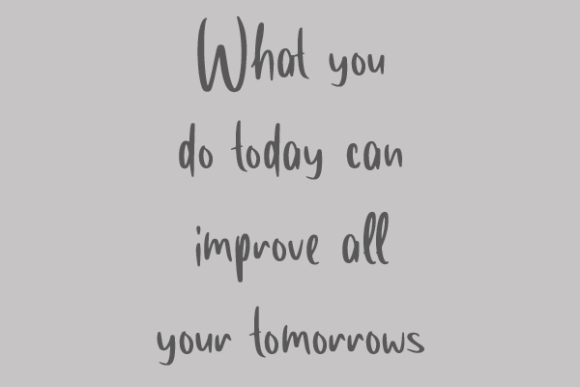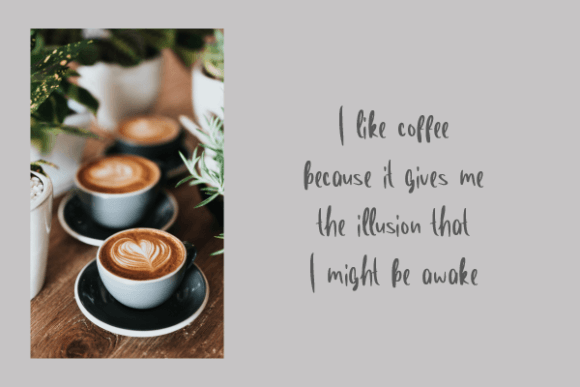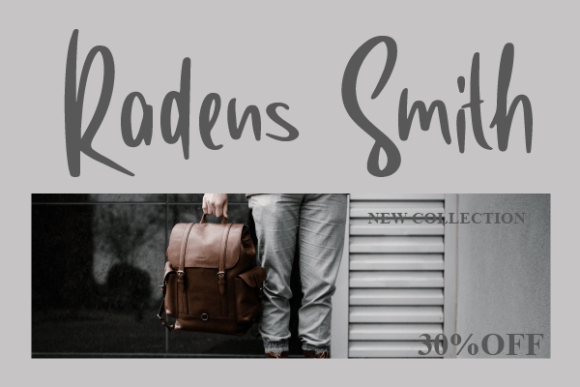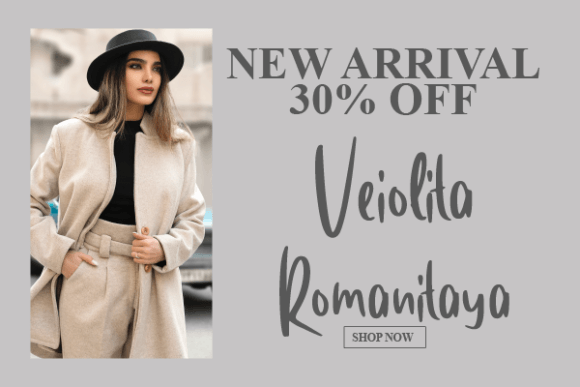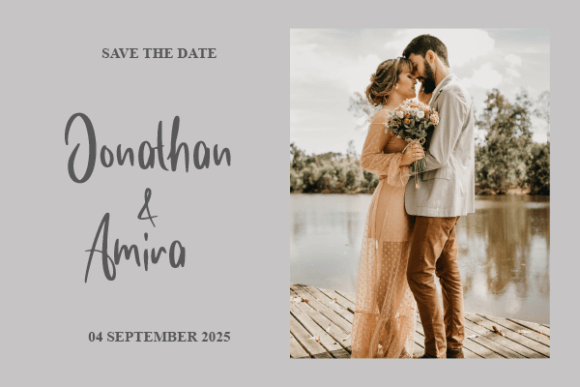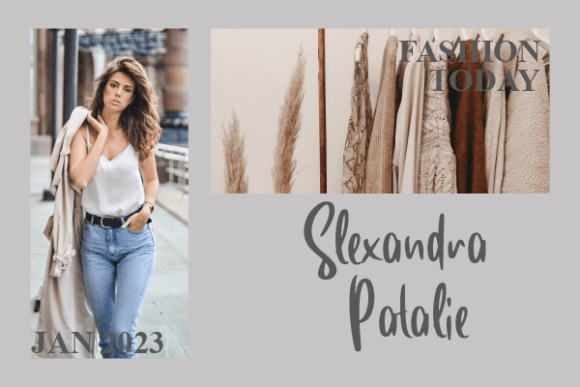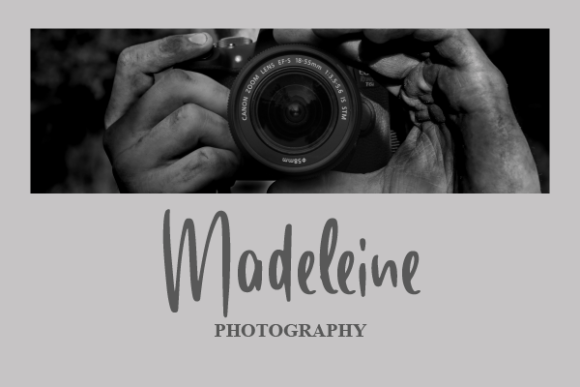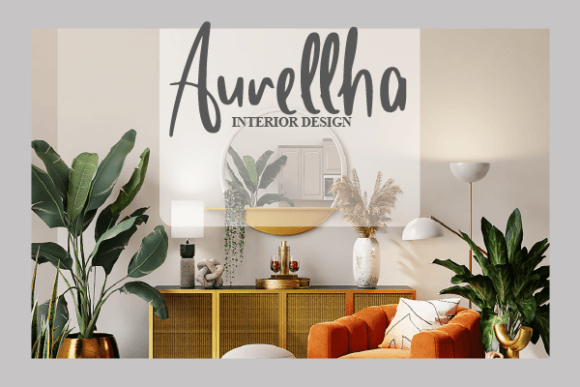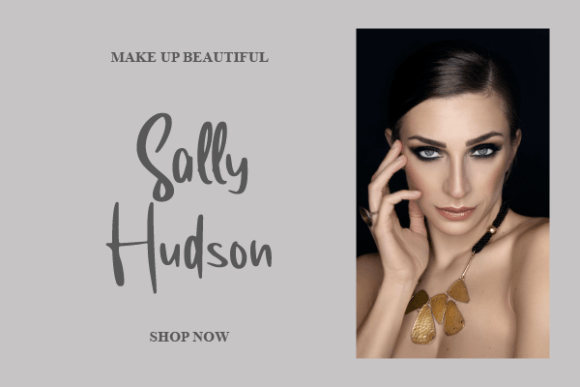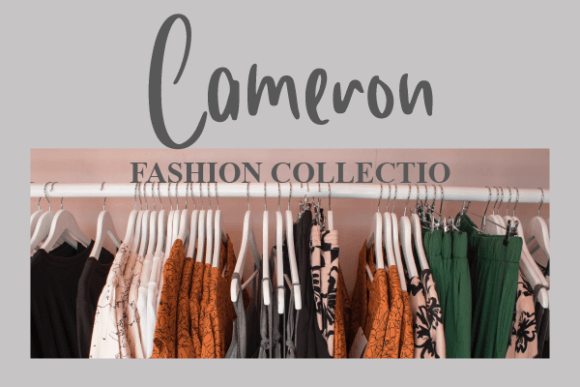
Dempster Tracey
Dempster Tracey Poster 1
About Dempster Tracey
Dempster Tracey is a new modern script calligraphy typeface with its own unique flow and elegant personality. Is suitable for all your design project needs such as logo design, branding, covers, posters, and more.